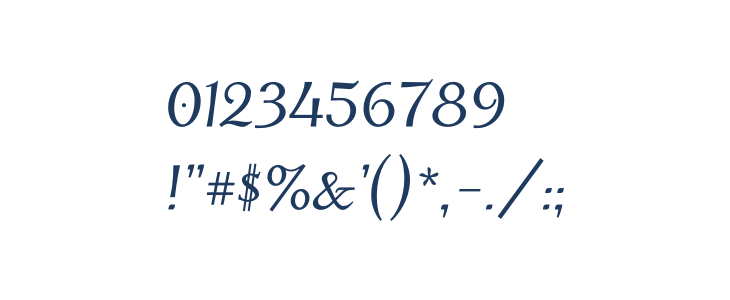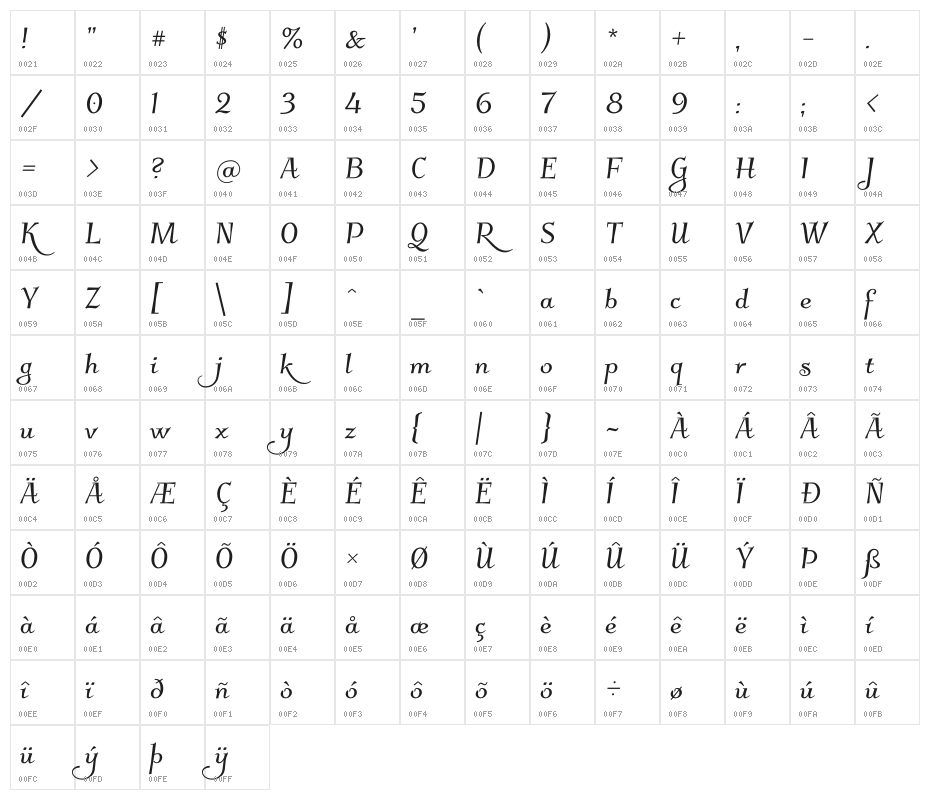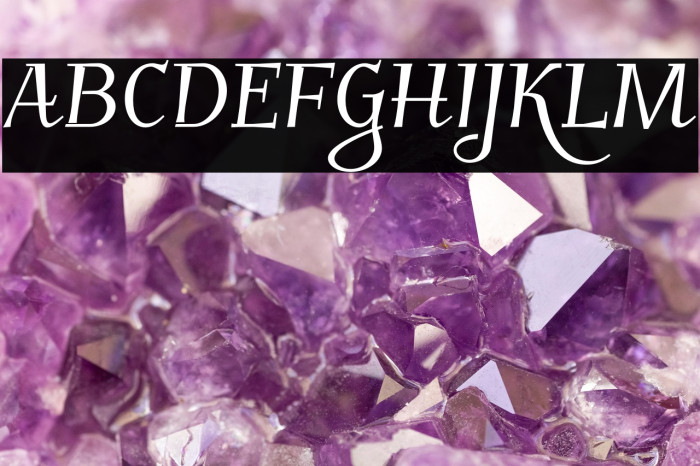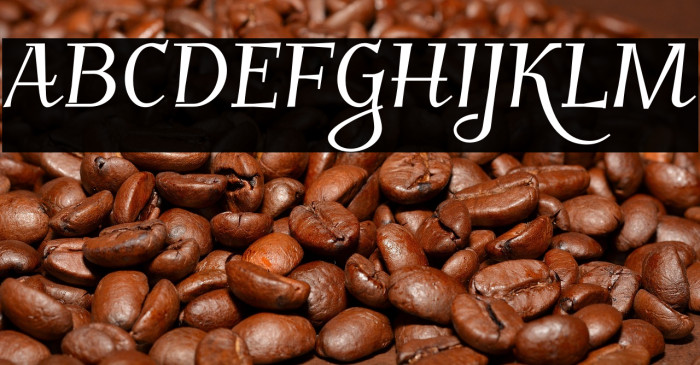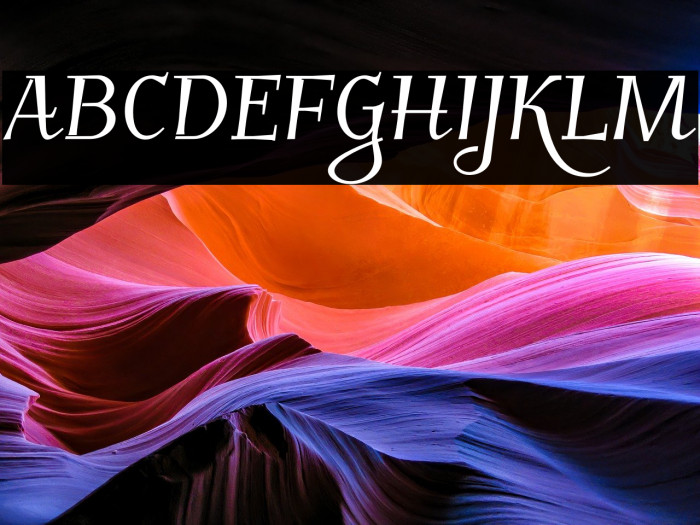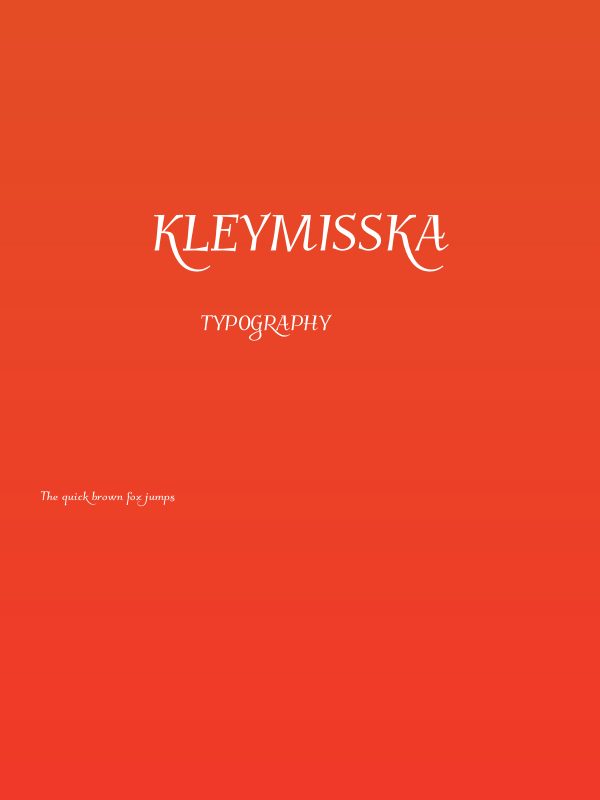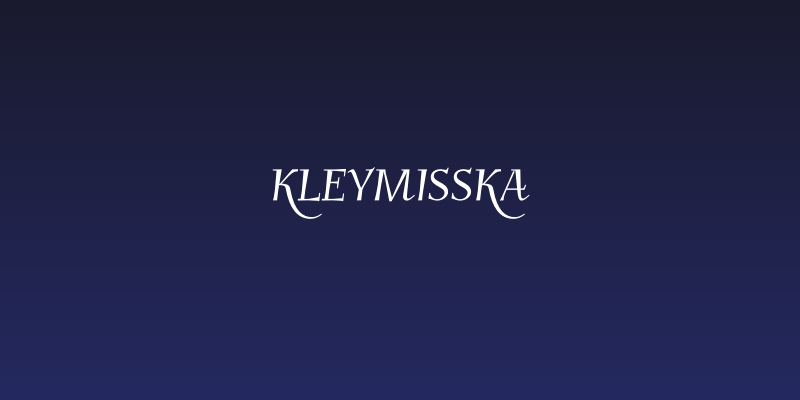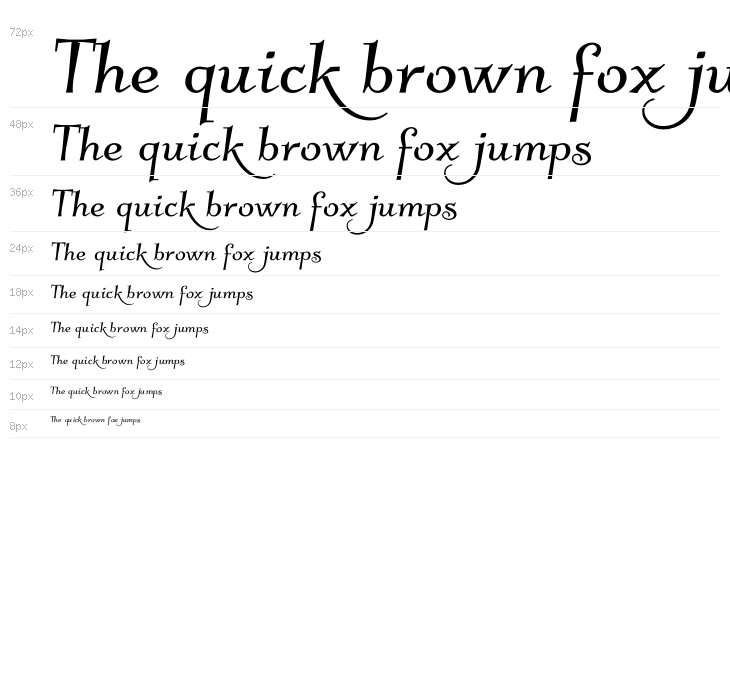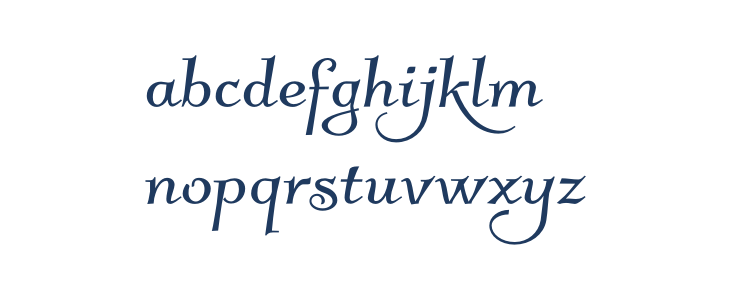
Kleymisska Font
Kleymisska Description
This font exudes elegance and sophistication with its flowing, cursive style. The uppercase letters are characterized by their sweeping curves and graceful lines, giving a sense of movement and fluidity. The lowercase letters complement this with a slightly more restrained yet equally stylish appearance. The numerals maintain the same elegant aesthetic, ensuring consistency throughout. Special characters are thoughtfully designed to match the overall style, making this font versatile for various uses. Its distinct flair makes it suitable for projects that require a touch of class and refinement.
| Overall Style | Elegant, Sophisticated |
| Use Case | Headlines, Invitations, Branding |
| Proposed Projects | Ideal for wedding invitations, luxury branding, elegant signage, and high-end product packaging. |